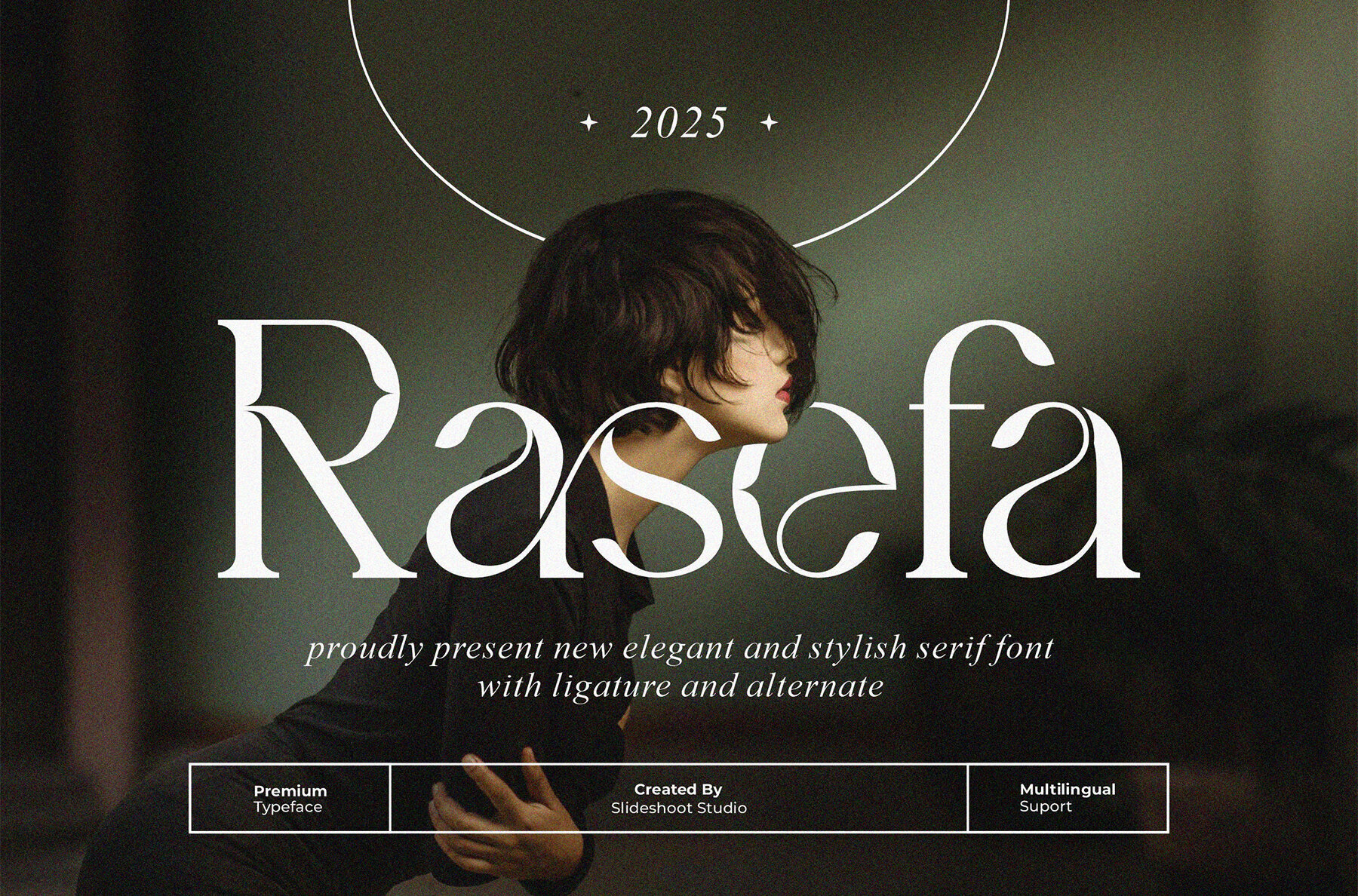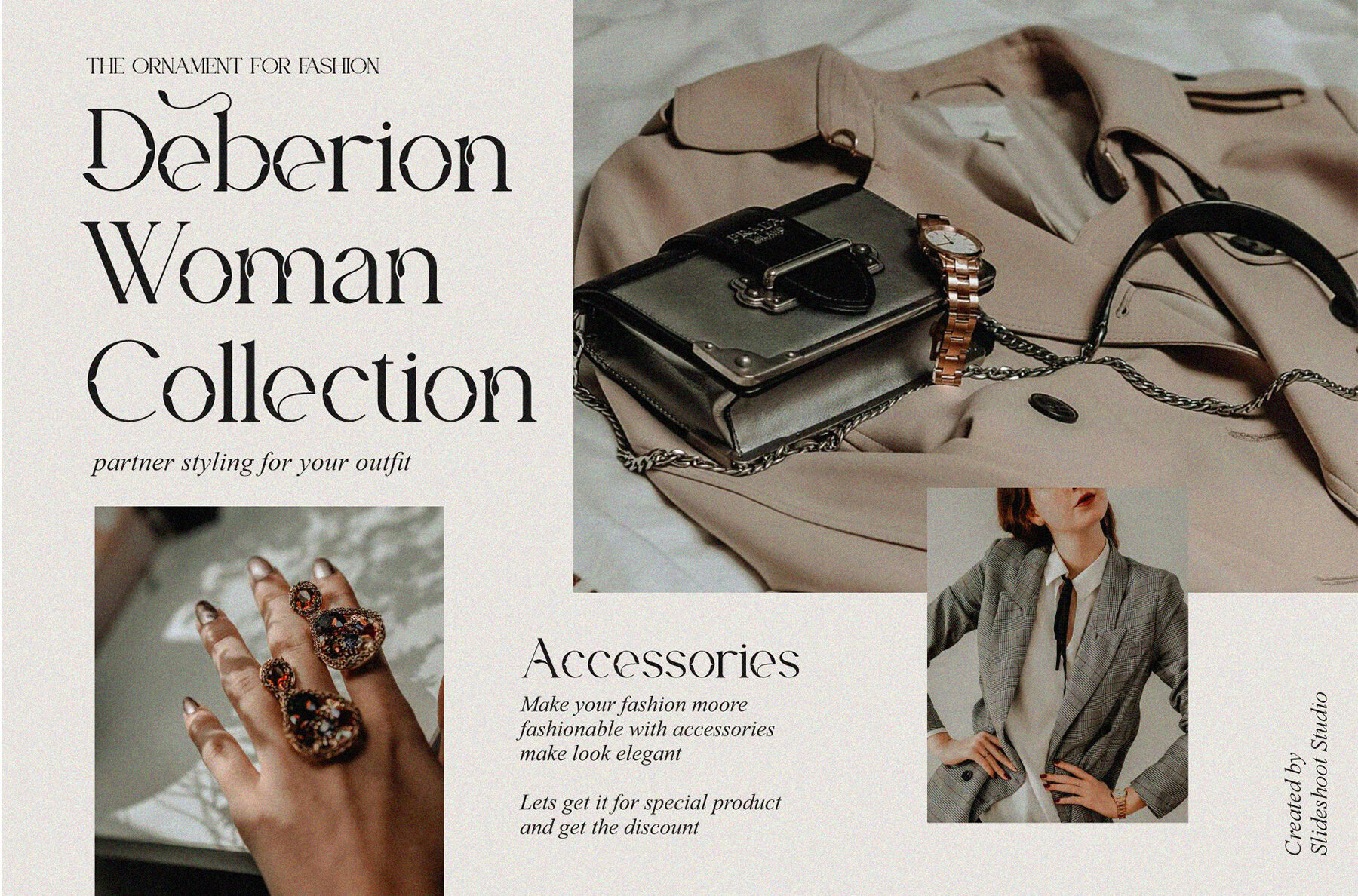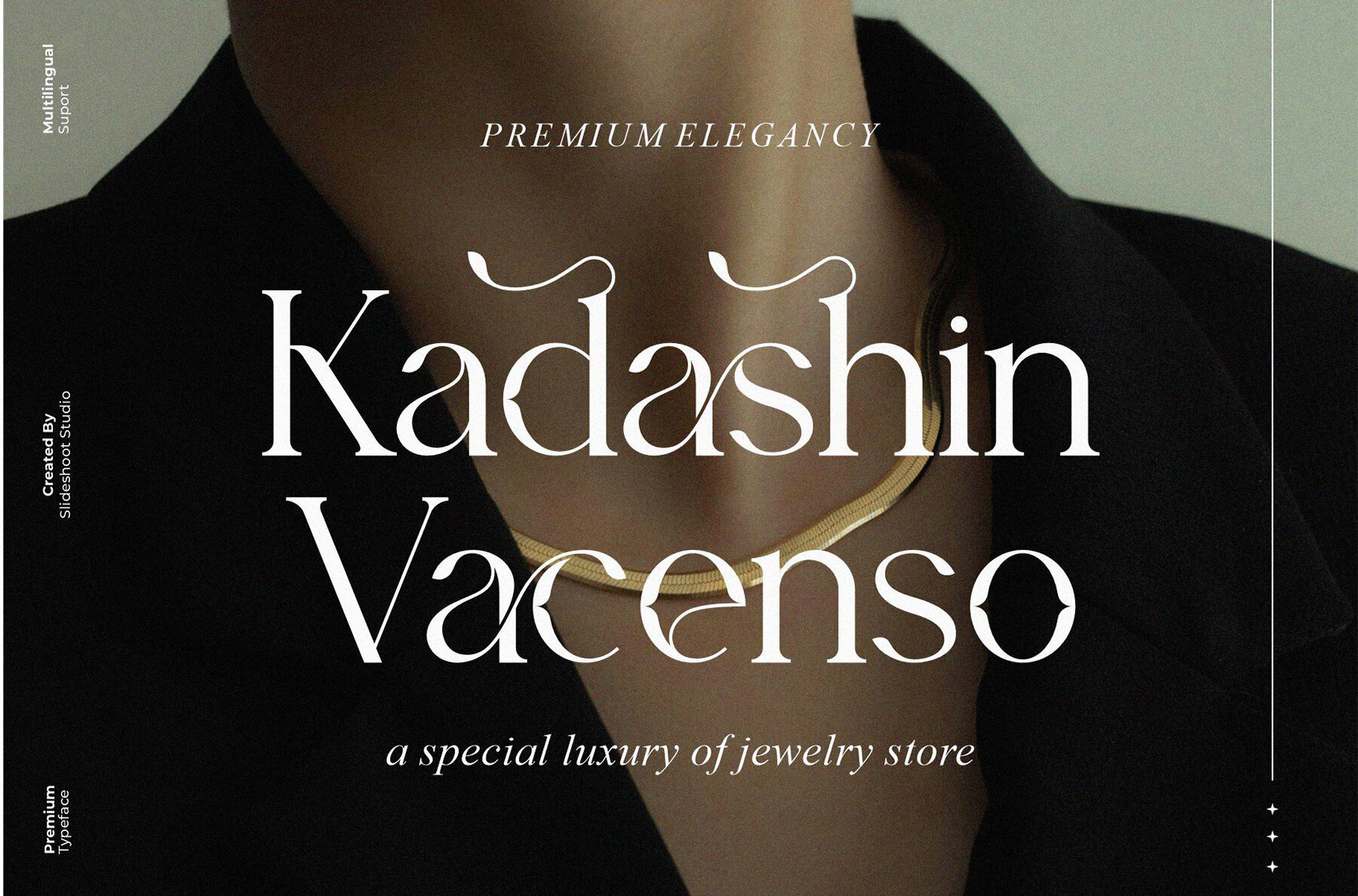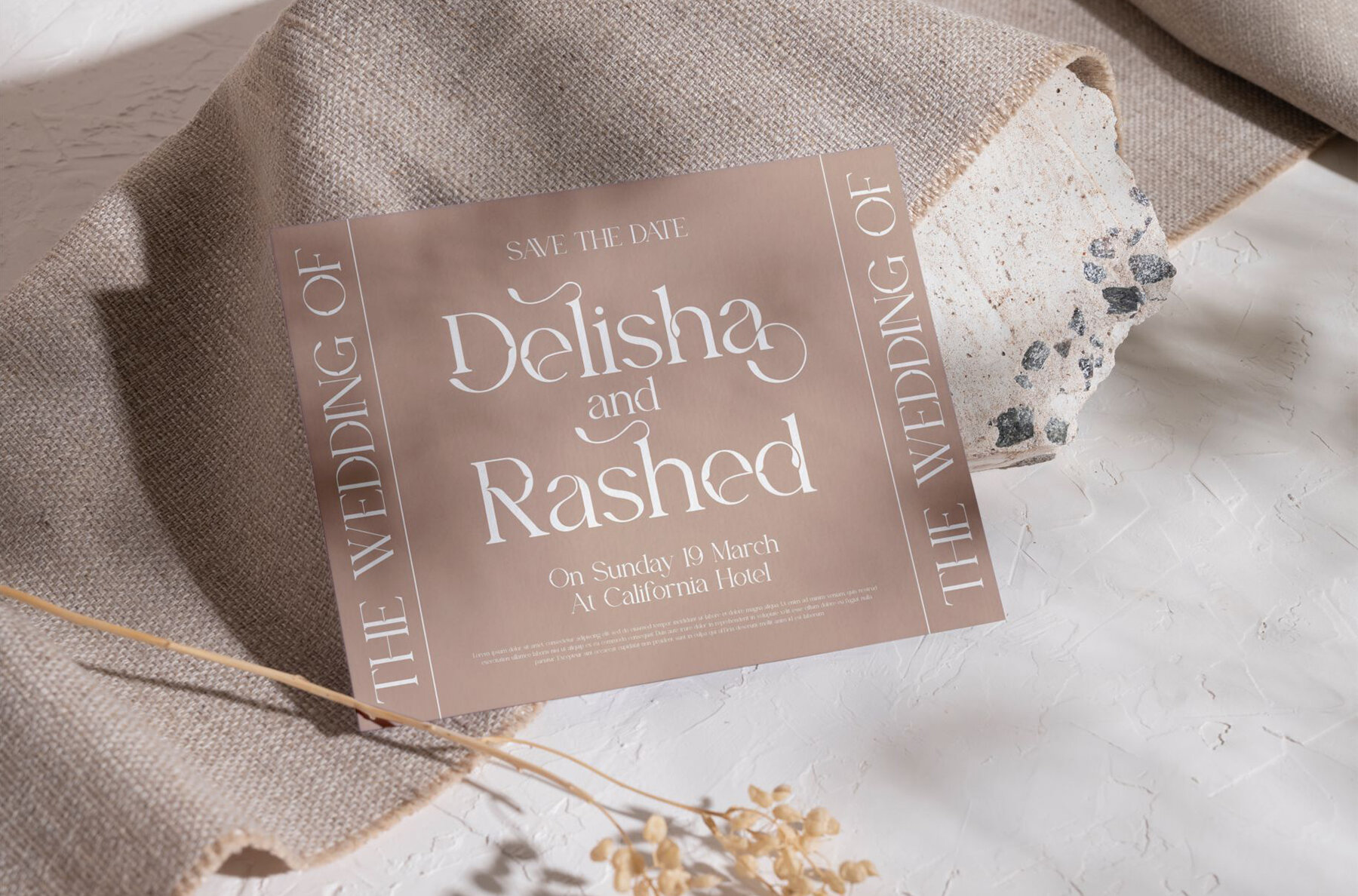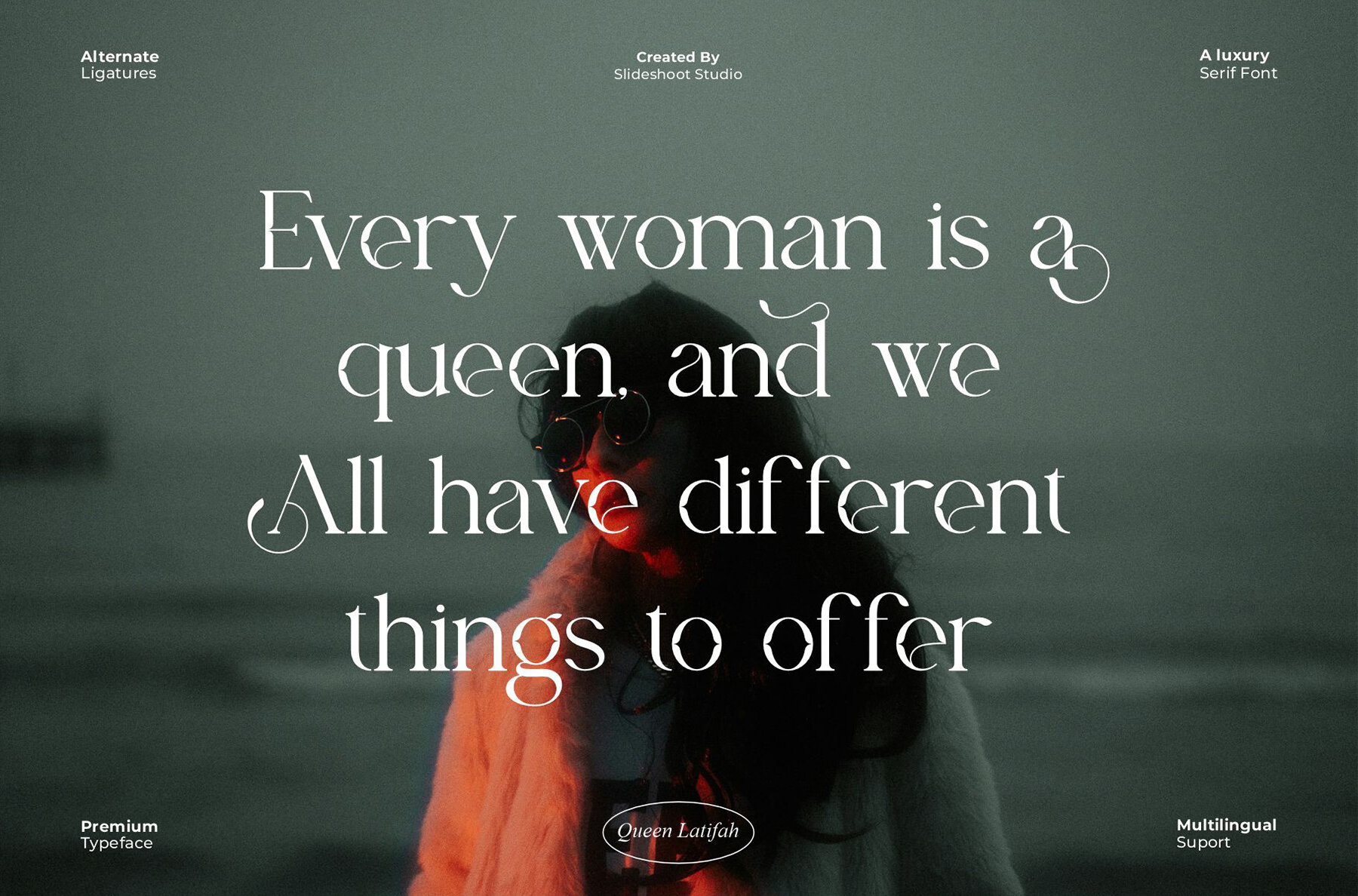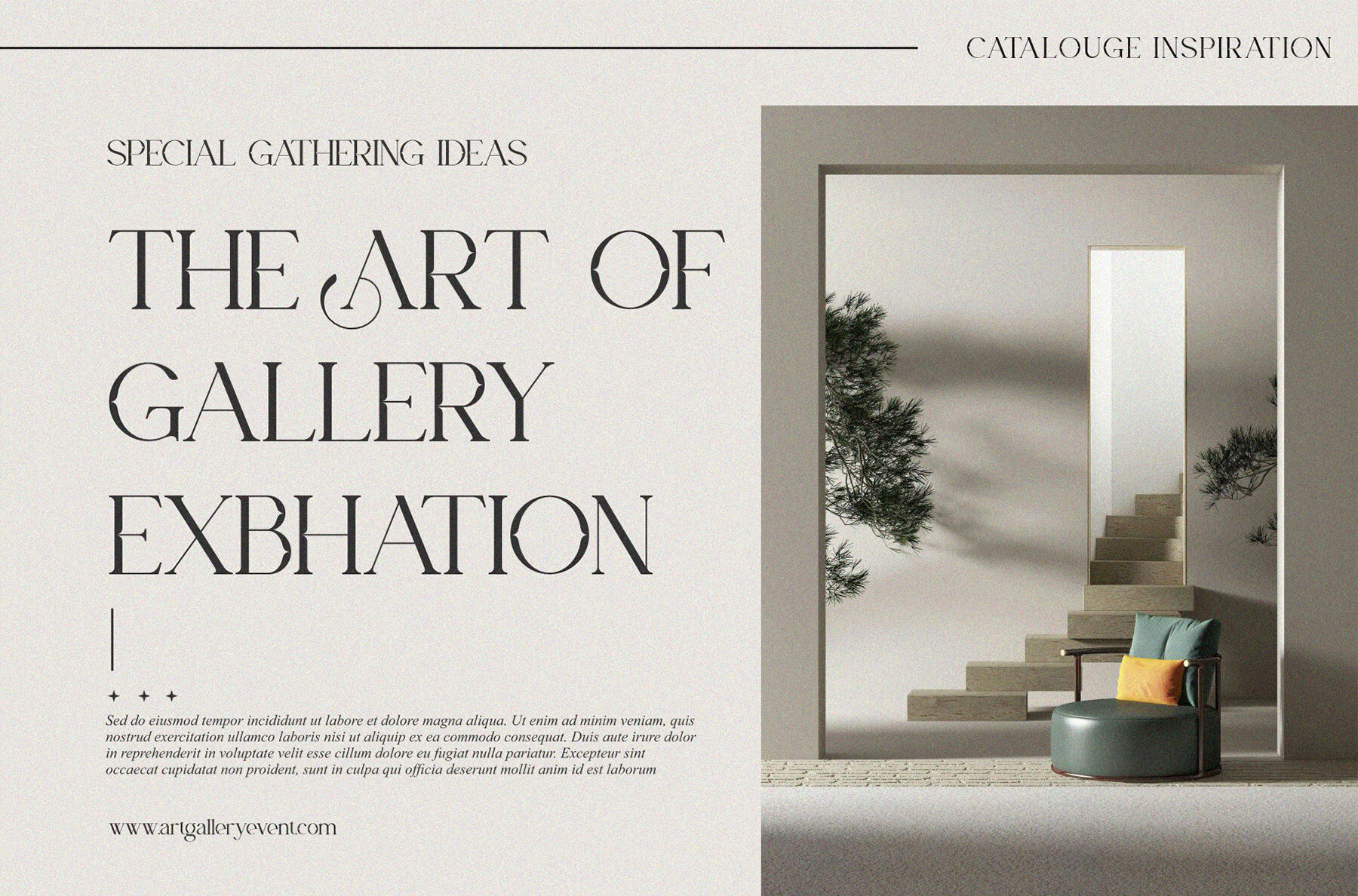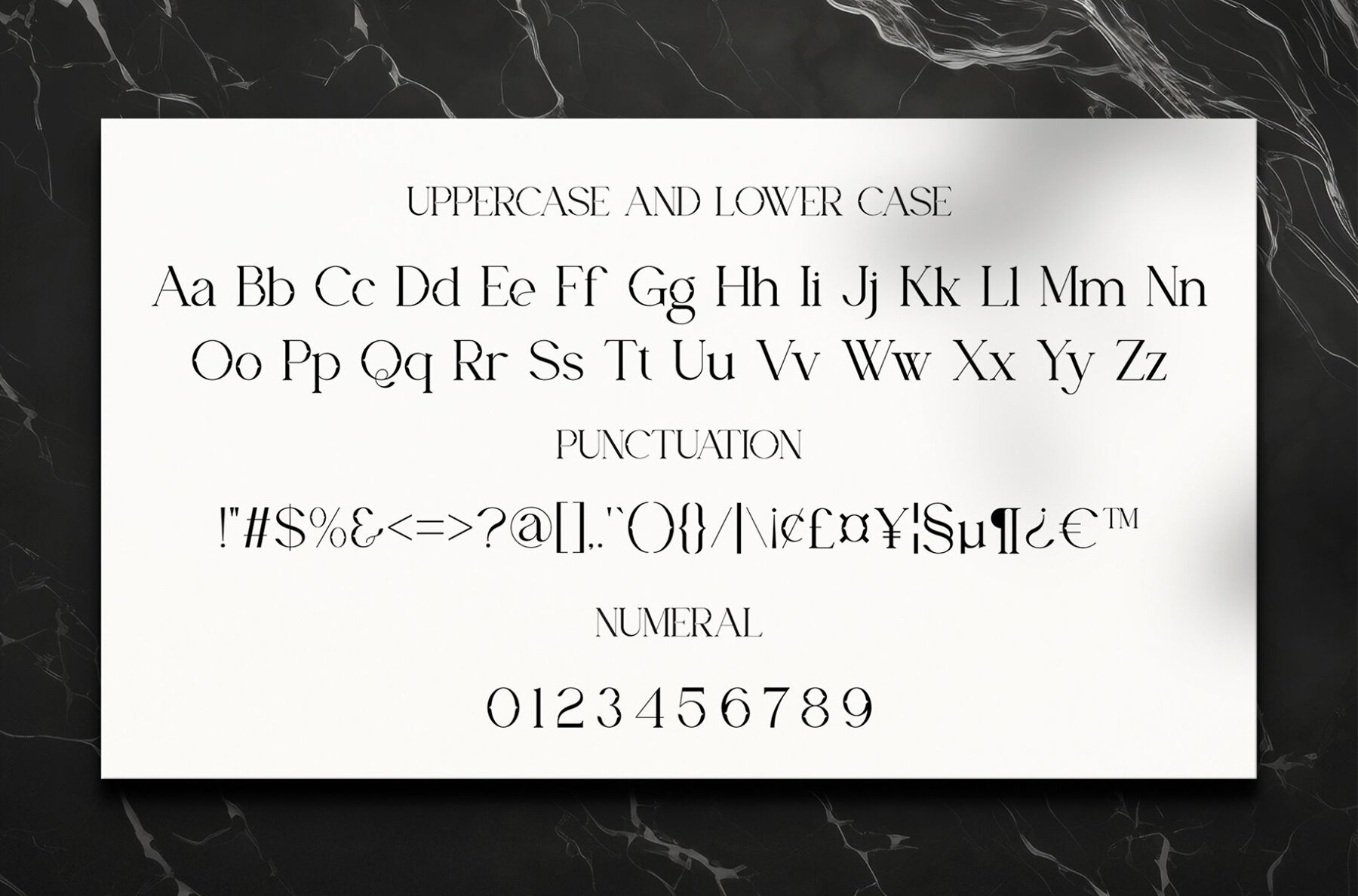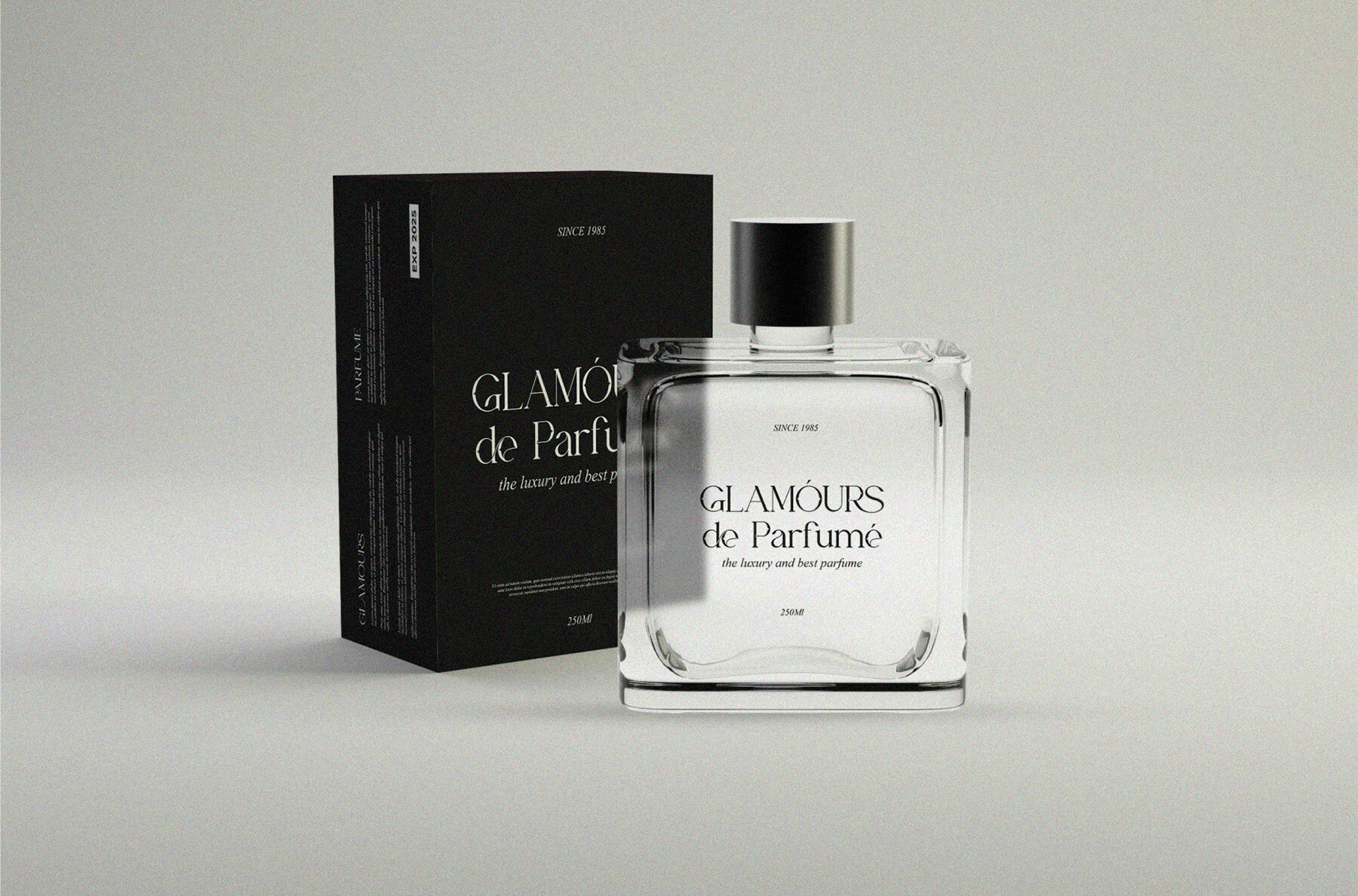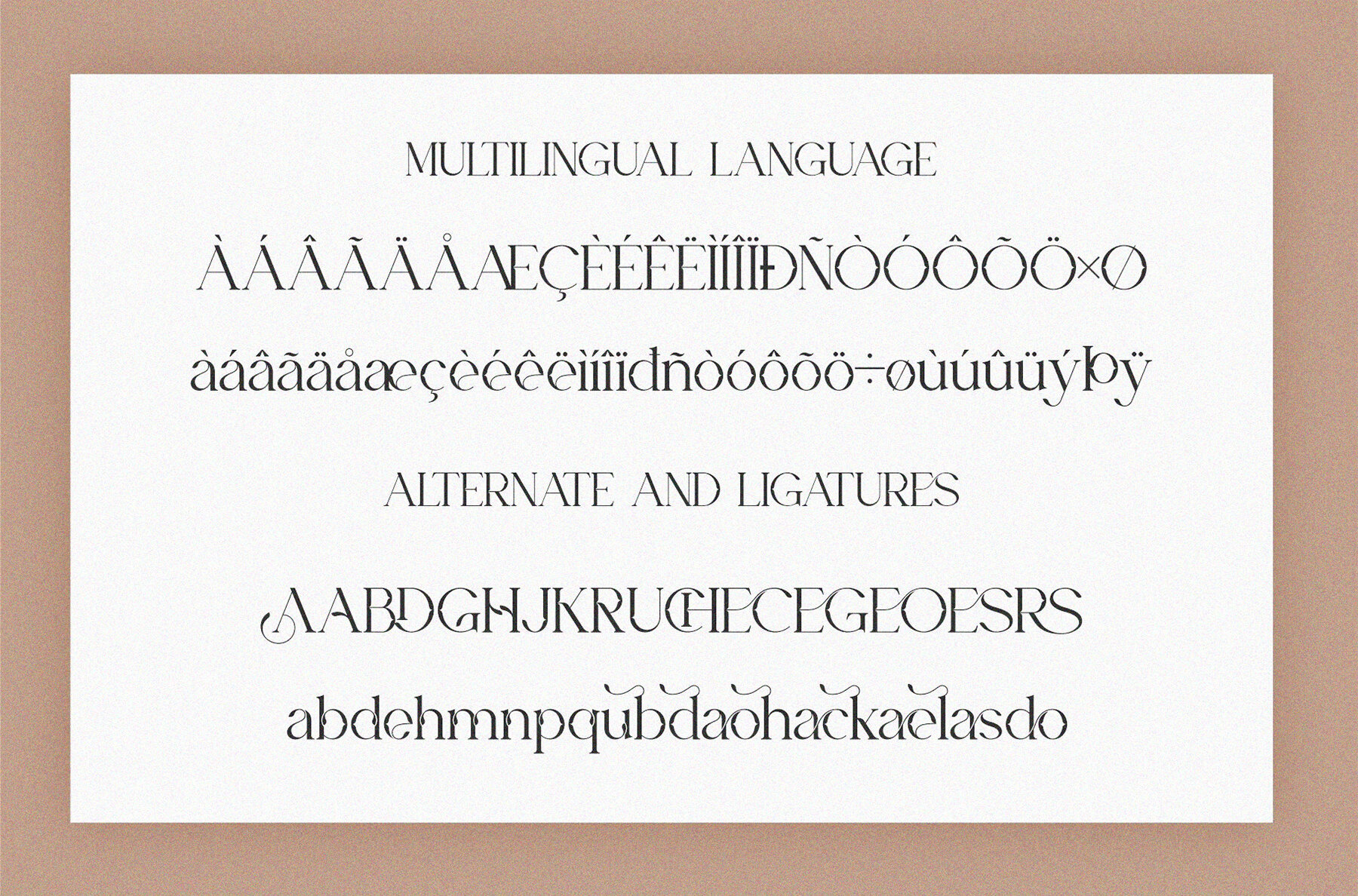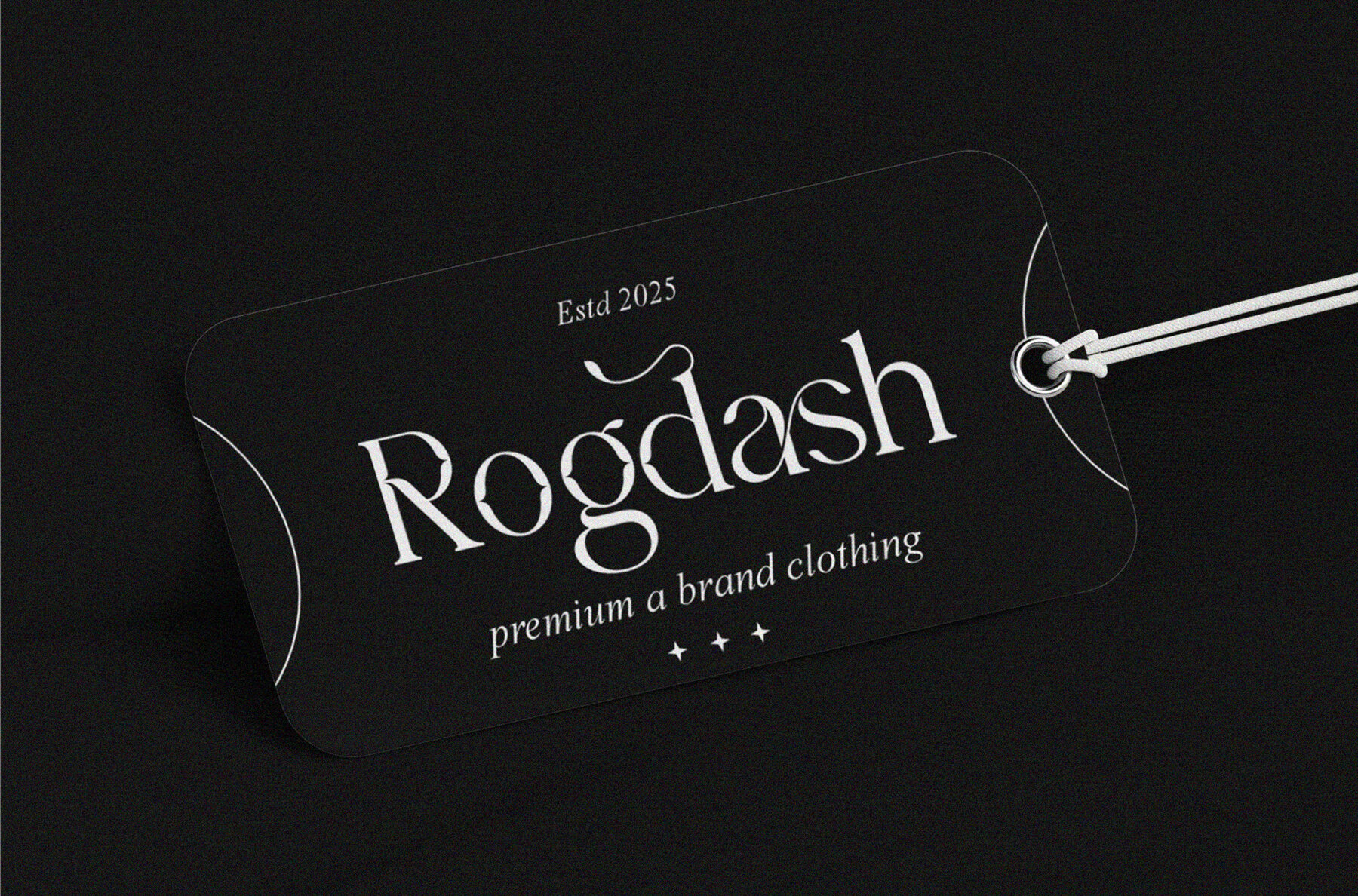
Rasefa Font
Rasefa Regular
Rasefa Serif brings a touch of vintage elegance to your designs with its timeless style and smooth character. Ideal for creating standout branding and logos, this serif font offers a sophisticated and classic look for various projects. Whether you're designing invitation cards, eye-catching logos, cinematic titles, business cards, or book covers, Rasefa Serif provides the perfect blend of charm and distinction.Rasefa Serif: Vintage Elegance